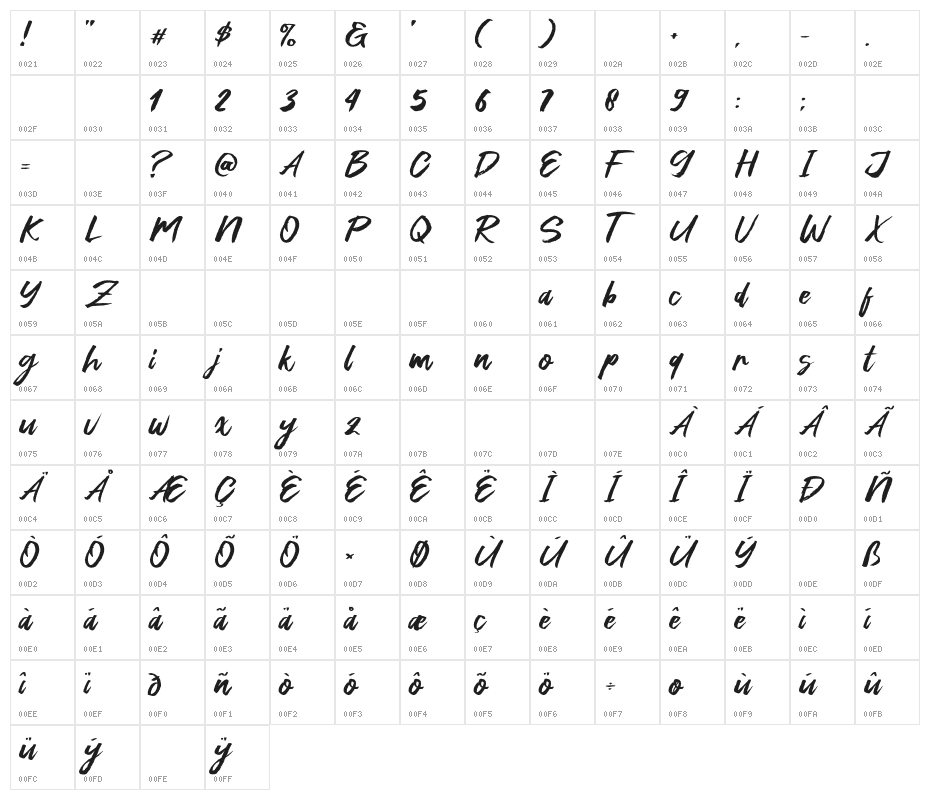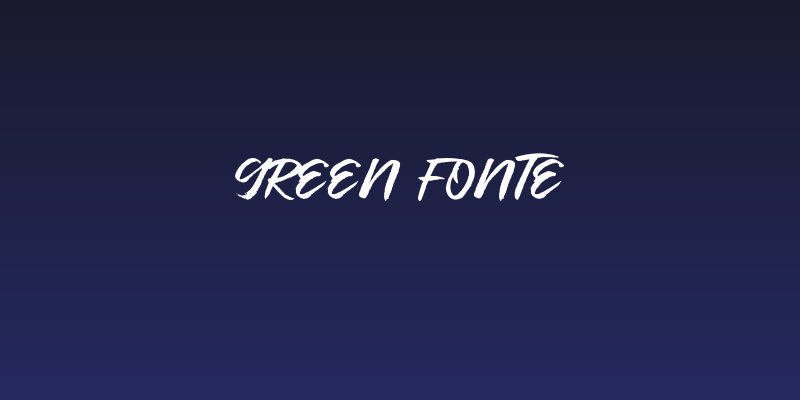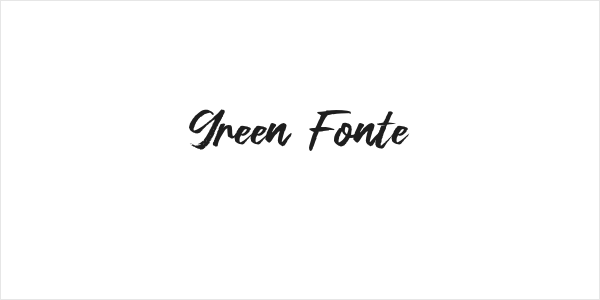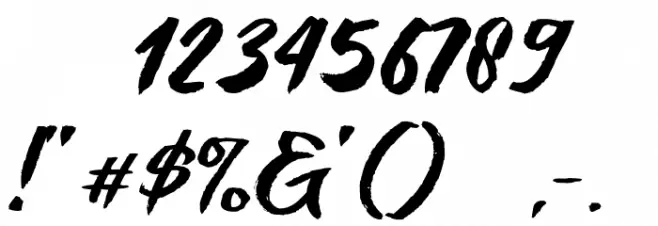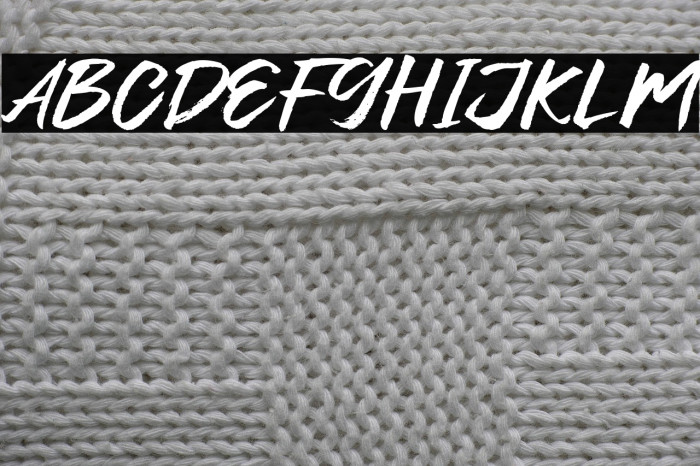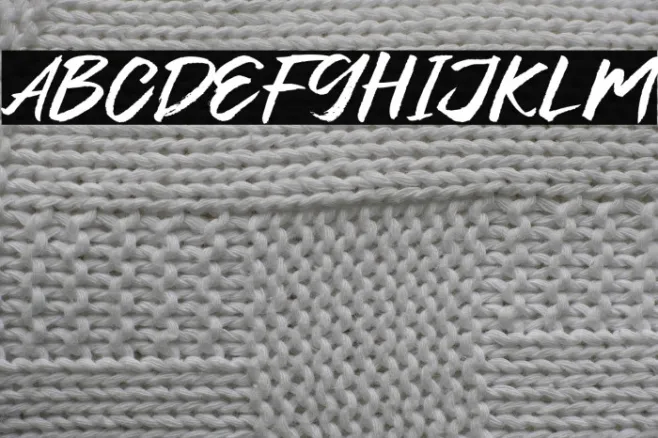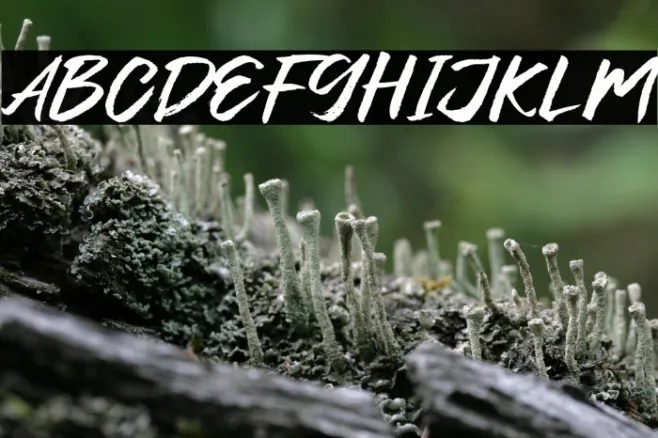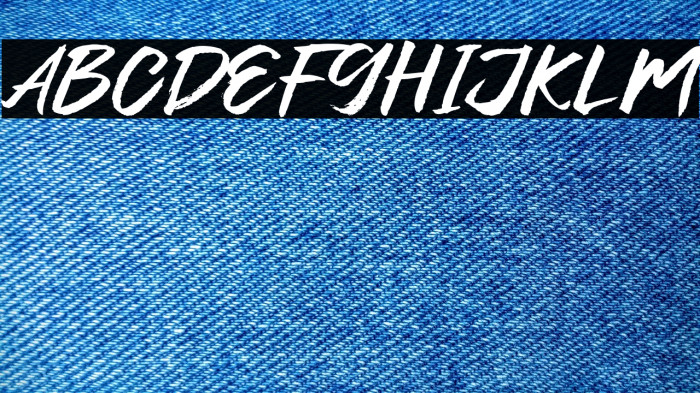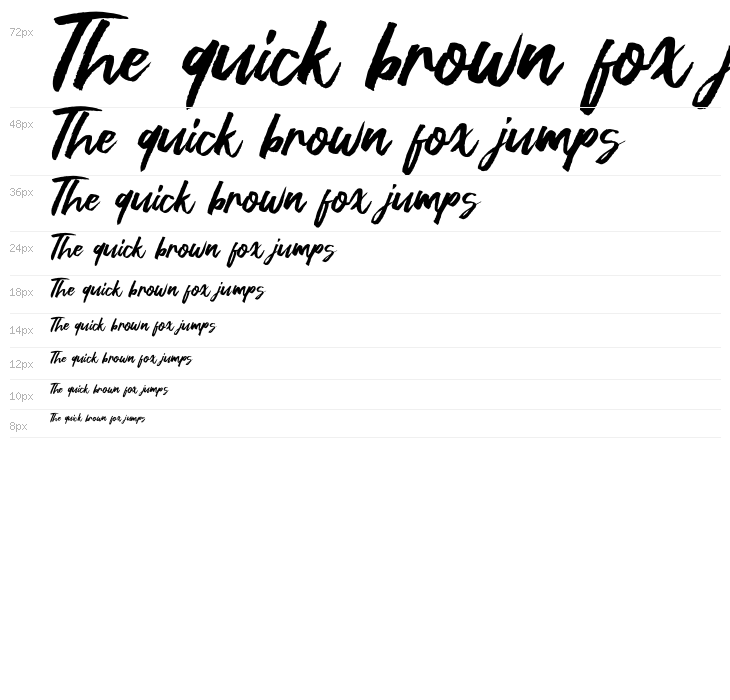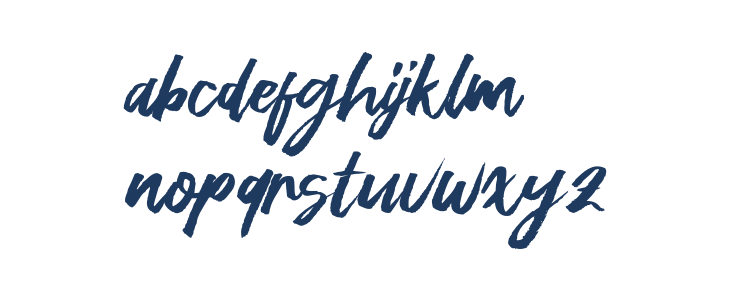
Green Fonte Font
Green Fonte Description
This font features a bold and dynamic script style with a hand-painted appearance. The strokes are thick and expressive, giving it a lively and energetic feel. The letters are slightly slanted, enhancing the sense of movement and fluidity. The uppercase and lowercase letters are well-balanced, with a consistent flow throughout. The numbers and special characters maintain the same bold and artistic style, making them stand out. This font is perfect for projects that require a personal and artistic touch, such as branding, posters, and invitations.
| Proposed Projects | Branding, posters, invitations, artistic projects, and expressive designs. |